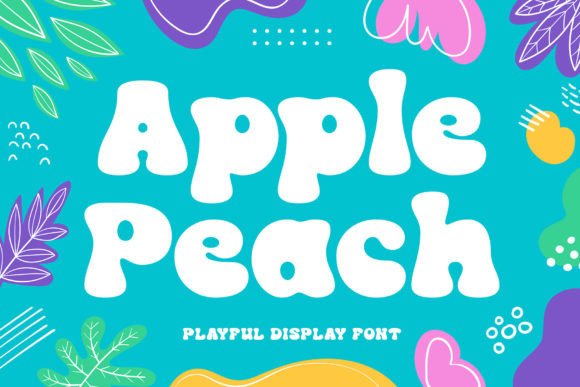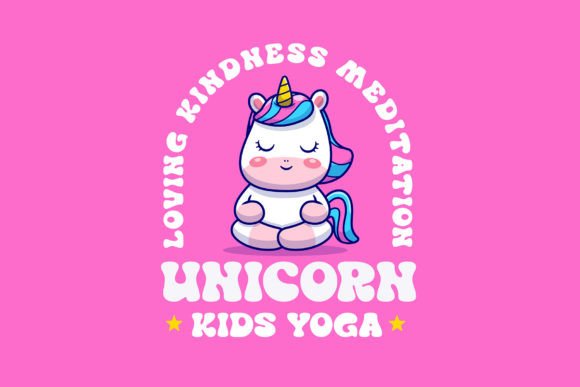
Apple Peach Font
Apple Peach is a cubby and childish display font that can also be easily used in the modern era. It is perfect for anyone who wants a fat and smooth typeface with a high level of legibility. The advantage of this font is that it can be used for various product designs according to your needs.